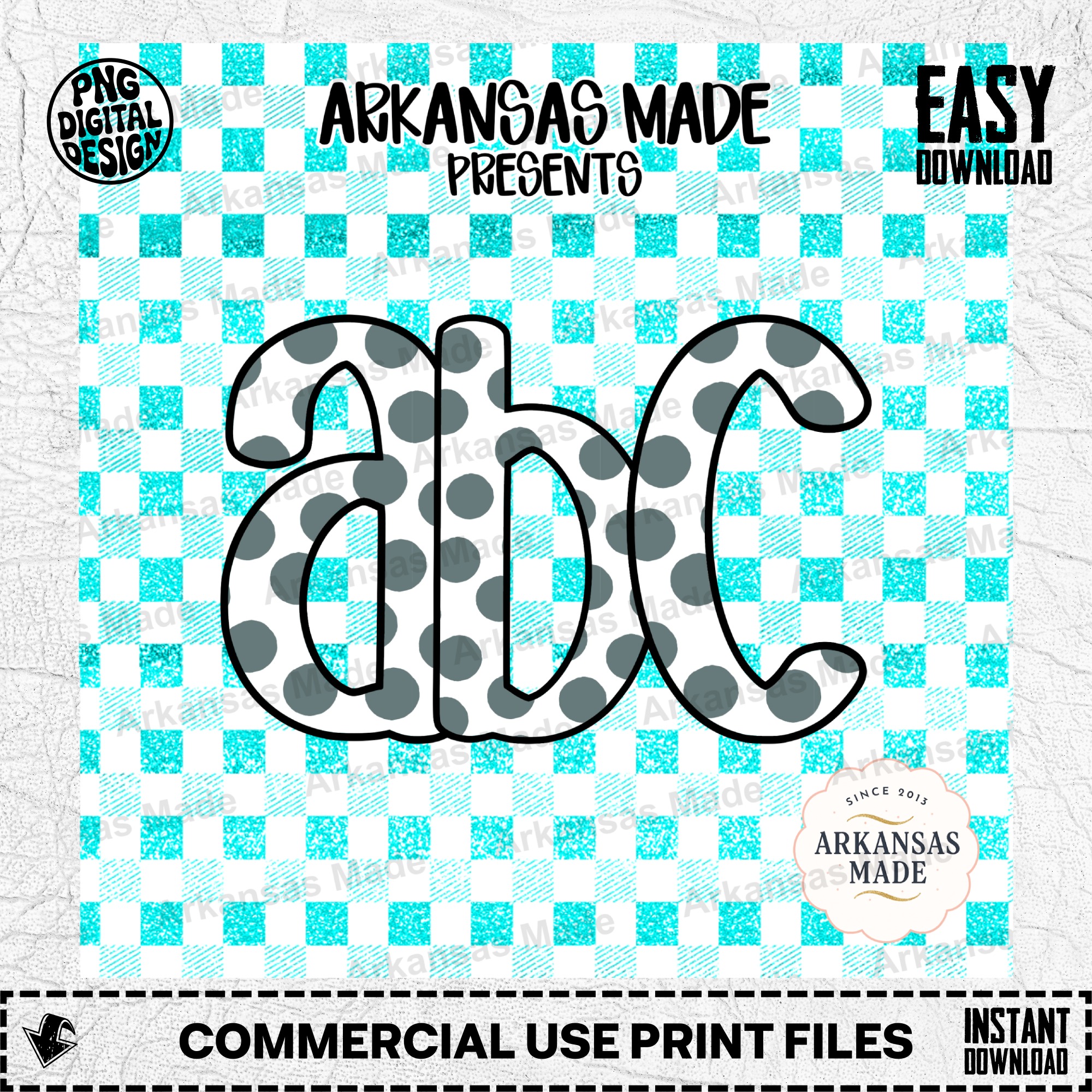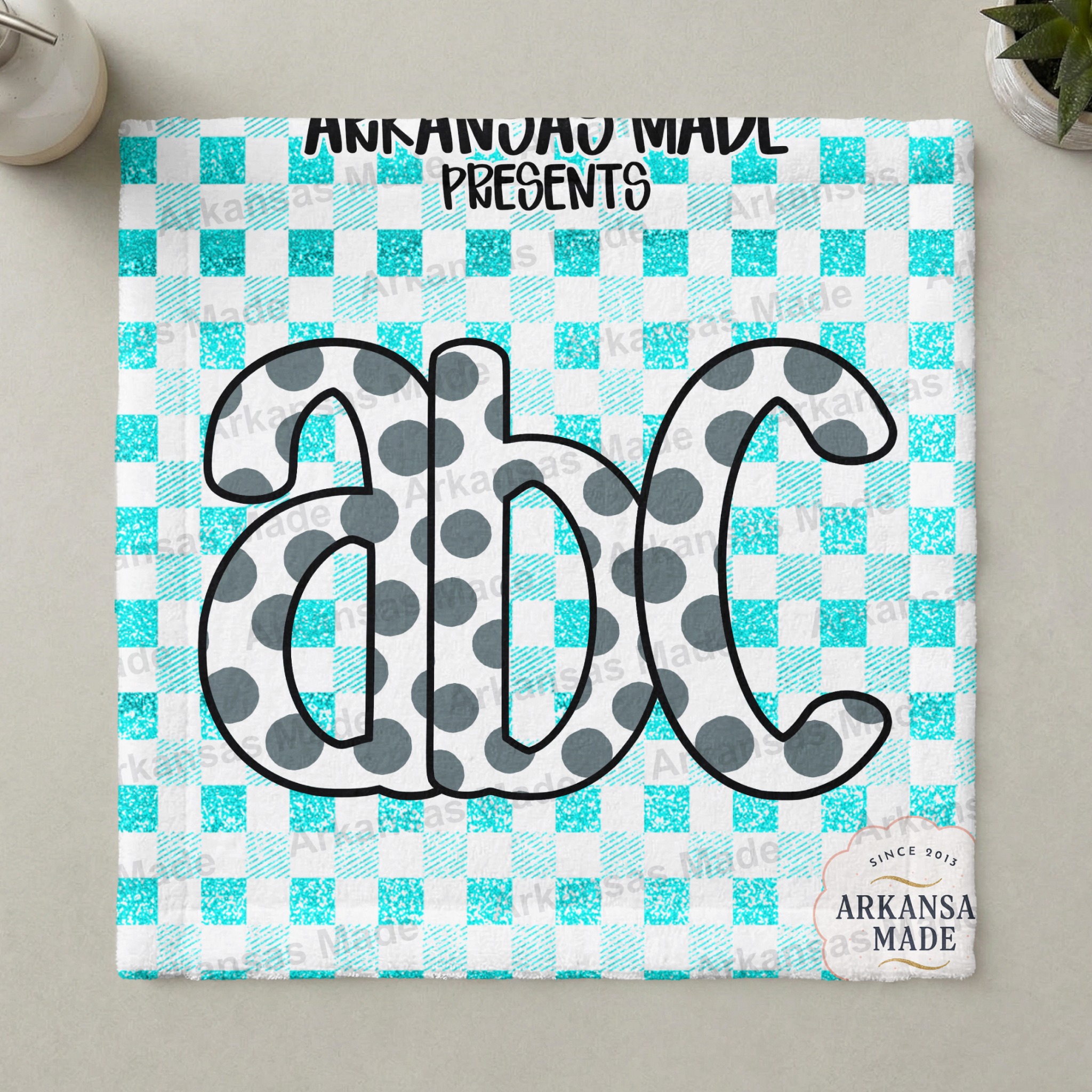
Aqua Polka Dot Gingham Alphabet Digital Download Alpha Set SVG PNG, Cute A-Z Letters, Craft Font Bundle, Personalized Kids Design
Elevate your creations with this vibrant Aqua Polka Dot Gingham Alphabet Digital Download Alpha Set, perfect for personalized gifts and crafts! This charming A-Z letter bundle features a playful polka dot fill with a fun faux glitter aqua gingham background, ideal for adding a touch of cuteness to any project. Use for nursery decor, custom apparel, teacher resources, or unique party decorations. A versatile design loved by crafters, moms, and small business owners alike.